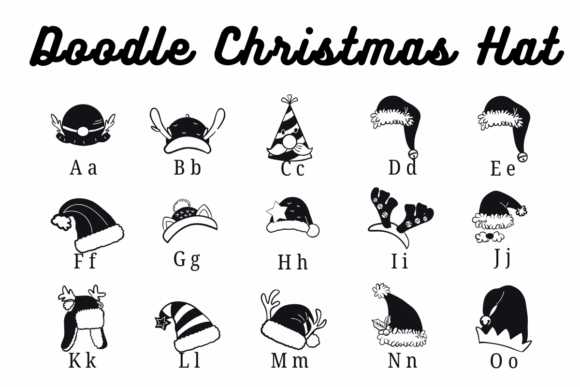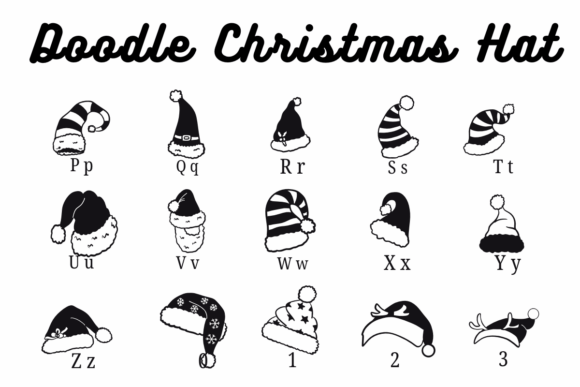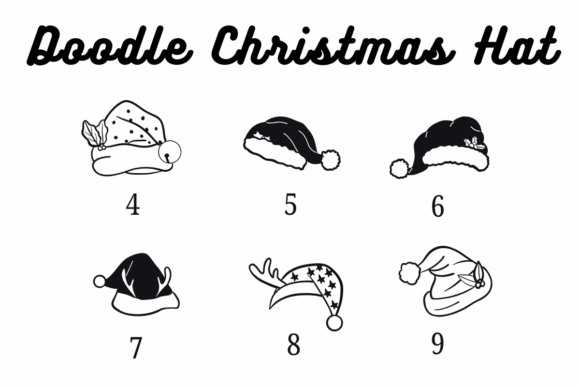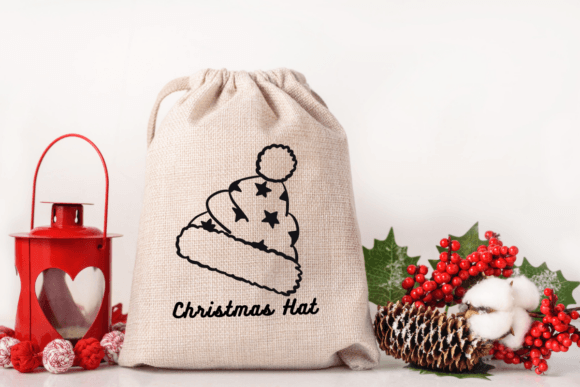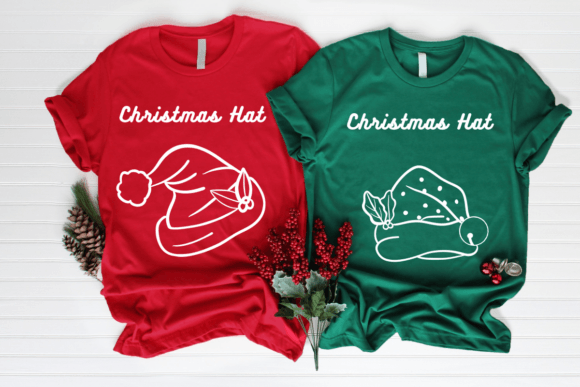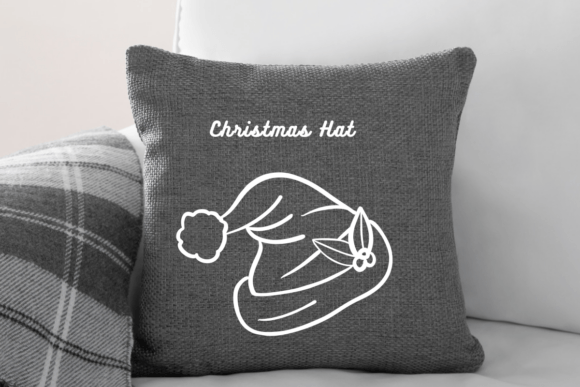
Deck the Halls with Creativity: Introducing the Doodle Christmas Hat Font
Have you ever found yourself staring at a blank canvas, wondering how to bring your holiday-themed project to life? You’re not alone! Whether you’re crafting DIY decorations, designing festive invitations, or creating holiday-themed logos, the right font can make all the difference. That’s where the Doodle Christmas Hat Font comes in – a festive dingbats font that’s sure to add a touch of magic to your creative endeavors.
This charming font is more than just a pretty face; it’s a valuable tool for designers looking to add a personal touch to their projects. With its playful, doodle-inspired design, the Doodle Christmas Hat Font is perfect for wedding invitations, crafts, decorations, and any other creative idea that needs a dash of holiday cheer. Whether you’re a seasoned designer or a DIY enthusiast, this font is sure to become your new go-to for all things festive and fun.
Doodle Christmas Hat Font Key Features
- Unique Characteristic: This font features a playful, hand-drawn design with intricate doodles and patterns, perfect for adding a festive touch to your designs.
Doodle Christmas Hat Font Review
I recently had the chance to work with the “Doodle Christmas Hat Font” and here’s my honest take on it. Overall, I’d say it’s a fun and playful addition to any holiday design project.
- Unique and quirky design aesthetic that’s perfect for adding some whimsy to your designs.
- Easily recognizable and festive, making it great for holiday-themed projects.
- Works well in a variety of sizes and styles, from small titles to large headers.
- Can be easily paired with other fonts to create a cohesive and eye-catching design.
- Limited character set and glyphs, which may limit its usability for longer blocks of text.
- May not be the best choice for designs that require a more serious or elegant tone.
- Can be a bit tricky to read in smaller sizes or when used in conjunction with other fonts that have similar letterforms.
The “Doodle Christmas Hat Font” is a fun and festive addition to any holiday design project. While it may have some limitations, it’s a great choice for adding some whimsy and personality to your designs. I’d definitely consider using it again in the future, especially for smaller projects or as an accent font.
Use the Doodle Christmas Hat Font for festive holiday projects, such as:
- Christmas card designs
- Gift tags and wrapping paper
For best results, pair the Doodle Christmas Hat Font with bold, bright colors and playful graphics.